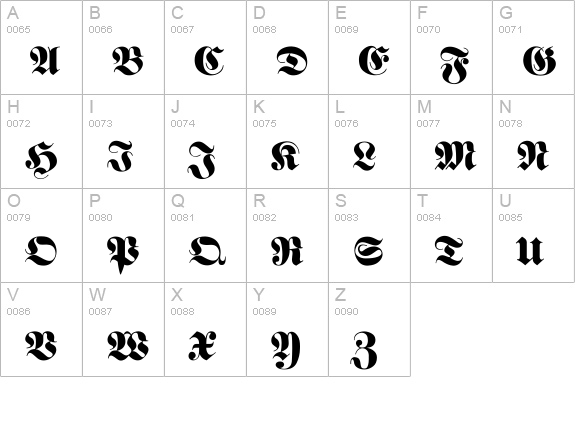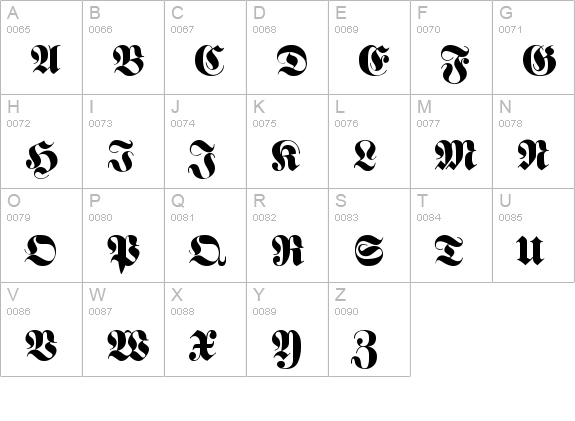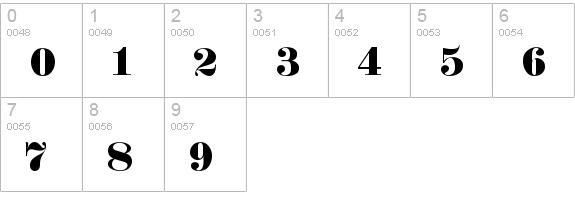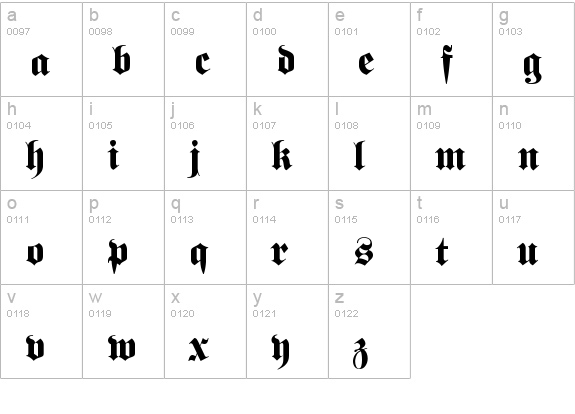
Fellowmaiden Font Details
Fellowmaiden font is a charming and elegant typeface that exudes a sense of grace and sophistication. With its delicate curves and flowing lines, this font is perfect for adding a touch of refinement to any design project. Whether you're creating wedding invitations, branding materials, or social media graphics, Fellowmaiden font will bring a touch of timeless beauty to your work. And the best part? Fellowmaiden font is completely free to download at FontsMarket.com! That's right, you can add this exquisite font to your collection without spending a penny. So go ahead and elevate your designs with the timeless beauty of Fellowmaiden font, available for free at FontsMarket.com.